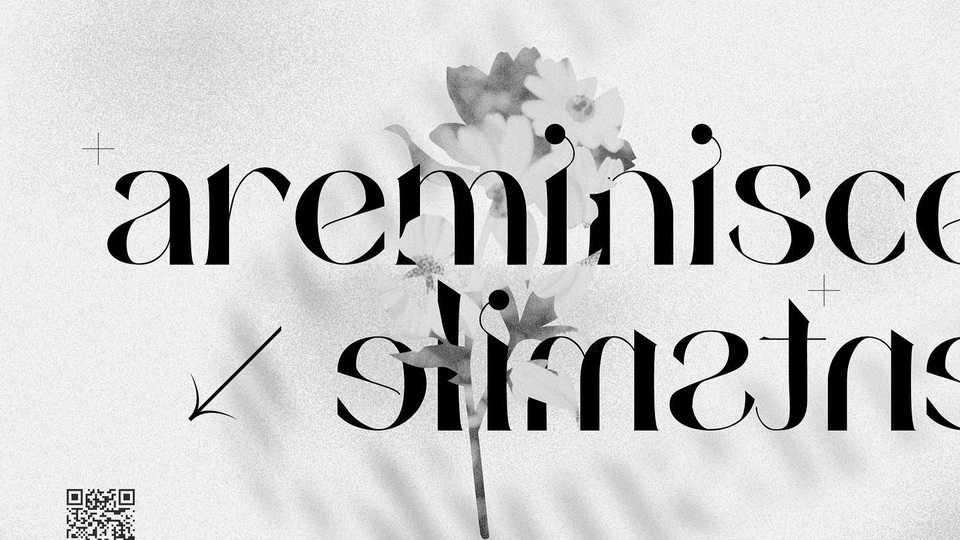
Download areminiscentsmile font, an elegant serif typeface. areminiscentsmile would be a great resource to various type of design, such as branding, logotype, typography, package design, etc.
Designer: Jihun Yoo